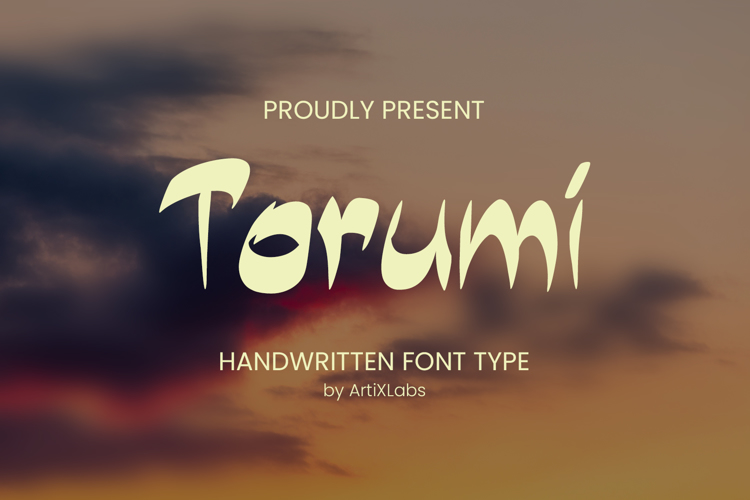
Torumi Font
Torumi is a bold handwritten display font inspired by Japanese brush calligraphy. Its sharp curves and flowing strokes create a dynamic balance between traditional elegance and modern style, making it perfect for logos, branding, posters, packaging, and creative projects.